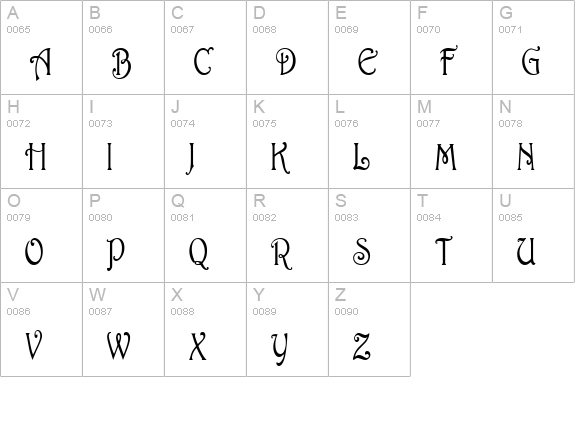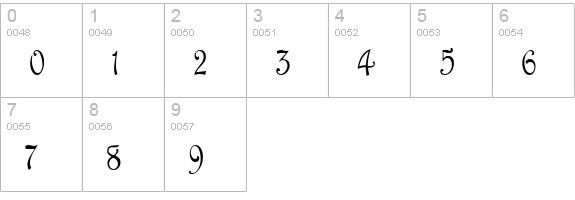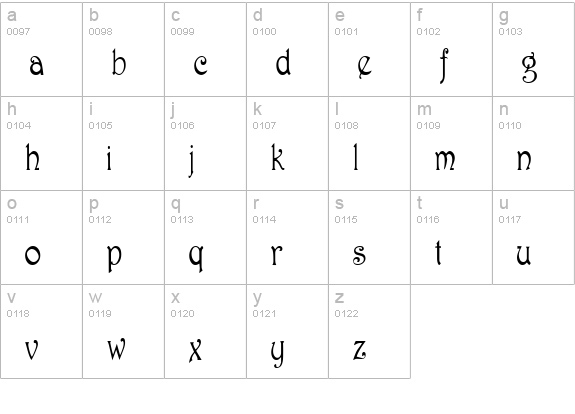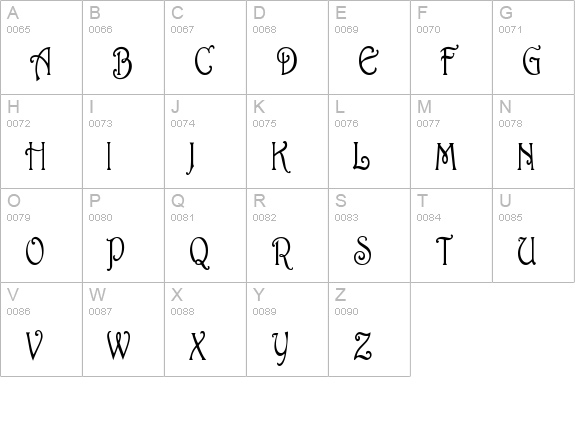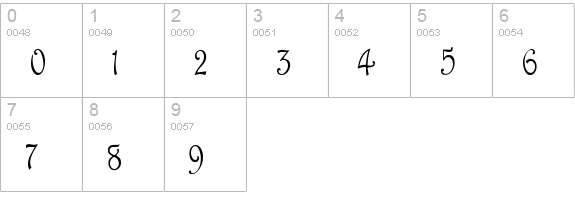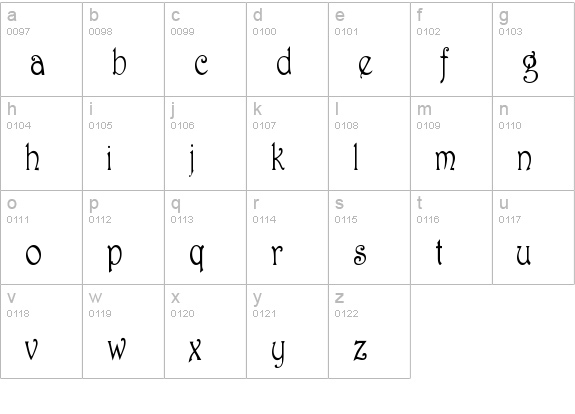
ParisianCondensed Normal Font Details
ParisianCondensed Normal is the standard, neutral variant in the ParisianCondensed typeface family \xE2\x80\x94 well suited to general body text, paragraphs, and standard typographic work.
ParisianCondensed Normal is a stunning font that exudes elegance and sophistication. With its clean lines and refined curves, this font is perfect for adding a touch of class to any design project. Whether you are creating a logo, a headline, or even a wedding invitation, ParisianCondensed Normal will elevate your design with its timeless appeal. The versatility of ParisianCondensed Normal is truly remarkable. This font can effortlessly be used in both formal and informal settings, making it a go-to choice for designers looking to make a statement. Its balanced proportions and graceful letterforms lend themselves well to a variety of applications, ensuring that your message is conveyed with style and clarity. What sets ParisianCondensed Normal apart from other fonts is its availability. Unlike many high-quality fonts that come with a hefty price tag, ParisianCondensed Normal is freely available to download at FontsMarket.com. This means that you can elevate your designs without breaking the bank. Whether you are a professional designer or a hobbyist, having access to a font of this caliber at no cost is a true gift. So why wait? Download ParisianCondensed Normal today and unlock the potential to create stunning designs that leave a lasting impression. With its elegant aesthetic and its availability as a free download, this font is a must-have for anyone looking to add a touch of Parisian charm to their designs. Don't miss out on this opportunity to elevate your work and captivate your audience. Get ParisianCondensed Normal now and let your creativity soar.